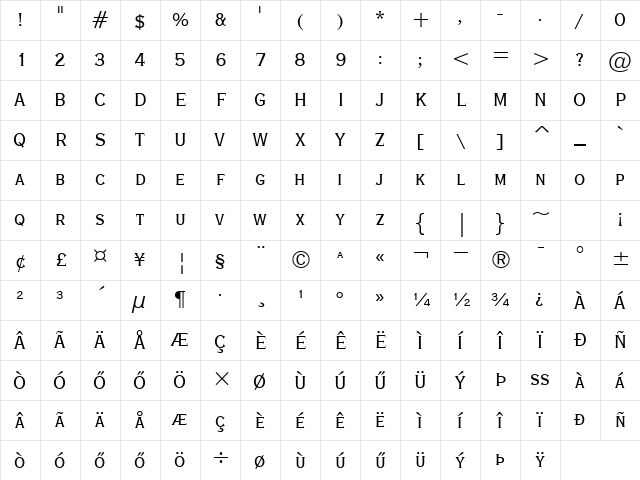
H_Copperplate Gothic Cn BT takes a clean, functional approach - its unadorned letterforms prioritise legibility and work reliably across screen and print environments.
Font Pairing: Works well alongside a characterful serif or display font that can carry the expressive load while H_Copperplate Gothic Cn BT handles the functional copy.
Pro Tip: Use H_Copperplate Gothic Cn BT for UI labels, navigation, and short-form body copy where clean legibility is the priority.